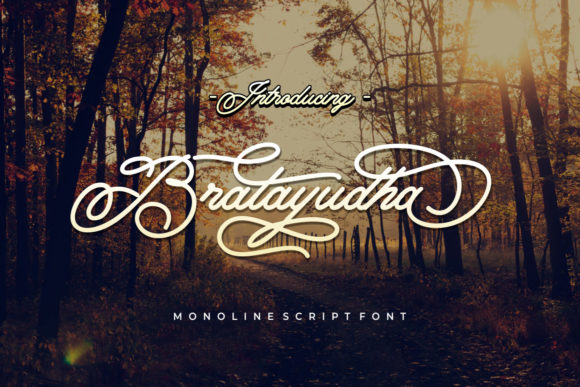
The Elegant Bratayudha Font: A Designer’s Delight
I’ll never forget the time I was working on a wedding invitation project, and my client asked for a font that exuded elegance and sophistication. I scoured the internet, tried out countless fonts, but nothing seemed quite right. That was until I stumbled upon the breathtaking Bratayudha Font. It’s been a game-changer for me ever since, and I’m excited to share my love for it with you!
- ✨ The elegant, flowing lines that make it perfect for wedding invitations, thank you cards, and greeting cards.
- ✅ The varying baseline that adds a touch of sophistication and uniqueness to any design.
- 😍 The gorgeous glyphs and stunning alternates that allow for endless creativity.
- 💻 The font’s versatility – it works beautifully for logos, business cards, and quotes.
While Bratayudha Font is an amazing font, there are a few things to keep in mind:
- ⚠️ Some of the glyphs and alternates can be a bit finicky to access, especially for beginners.
- 🤔 The font might not be the best choice for body text or long paragraphs, as it’s more suited for headlines and titles.
The Backstory of Bratayudha Font
Bratayudha Font was designed with elegance and sophistication in mind. The creator of the font wanted to craft a typeface that would evoke a sense of luxury and refinement. With its beautiful lines, gorgeous glyphs, and stunning alternates, Bratayudha Font is sure to impress even the most discerning designers.
Q: What type of projects is Bratayudha Font best suited for?
A: Bratayudha Font is perfect for projects that require an elegant, handwritten touch, such as wedding invitations, thank you cards, greeting cards, logos, and business cards.
Q: Is Bratayudha Font easy to read?
A: Bratayudha Font is designed to be elegant and sophisticated, but it may not be the best choice for long paragraphs or body text. It’s best used for titles, headings, and short text snippets.